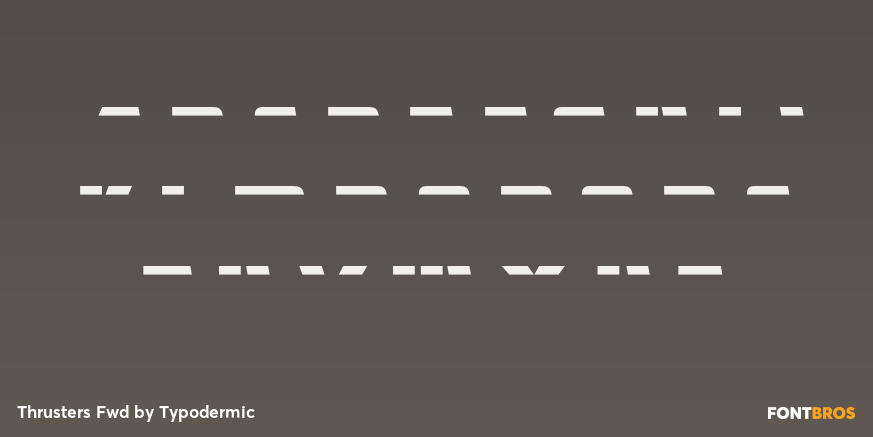
Thrusters Fwd
Buy NowThrusters Fwd isolates the upper horizontal strips of the family’s aligned letterforms. On its own, the separated segments behave like a broken speed stripe; stacked with the other Thrusters styles, they provide a distinct color band that can run through an entire model name or title.
Use Thrusters Fwd for RC liveries, kart graphics, rocket-kit decals, arcade marquees, helmet graphics, and motion sequences where the top band can appear, travel, or change color independently. Keep the wording short and large enough for the separate pieces to read as a deliberate component rather than a damaged font.